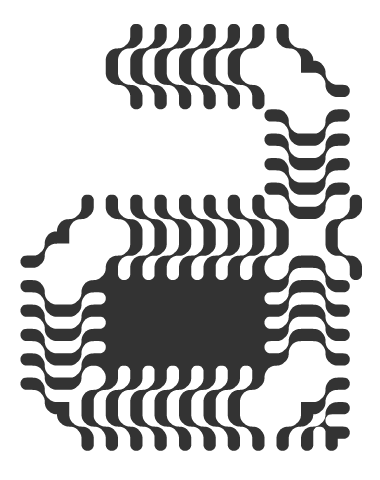
Études Typographiques 02
Vertebrae is the second piece of my series entitled Études pour Noir et Blanc.
Just found time to hang around FS and the first thing I see here is a huge cool glyph in the live feed.
Awesome, Señor Bolsón.
Fantastic! In smaller sizes it looks like flexible tubing ... or like it's threaded ... or like ... vertabrae :) A big 10
something happened here or maybe i just missed it. this is great. outstanding work.
are you doing a black filled version like the alternates? that looks very enticing. what's up with the restricted license? :)
@funk_king: Yes, I decided to put the black filled letters in a separate version (02B). This way, there is no confusion what glyph is where.
There are more Études on the drawing board...
Absolutely brilliant! Not only me I take my hat off to you and your excellent work, I take my brain off! (this is a Spanish joke, I hope you understand). Absolutely brilliant, again!
Great font. Depending on the size it either gives a 3D affect or it looks like a printed circuit.